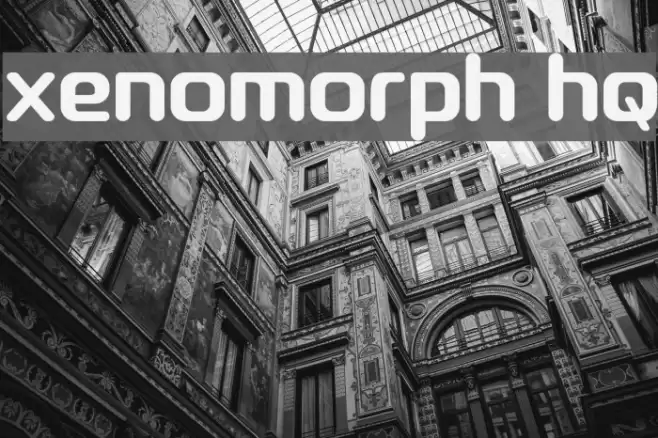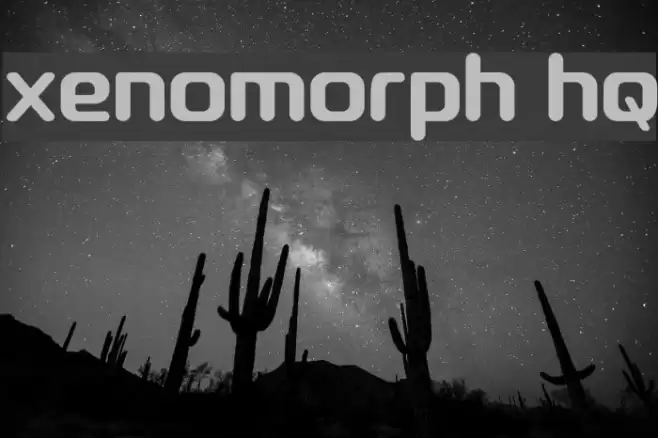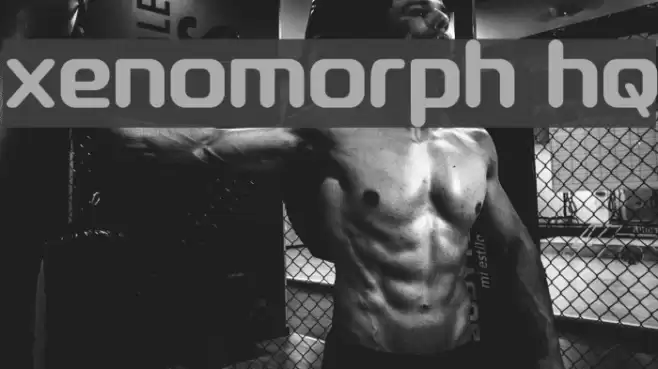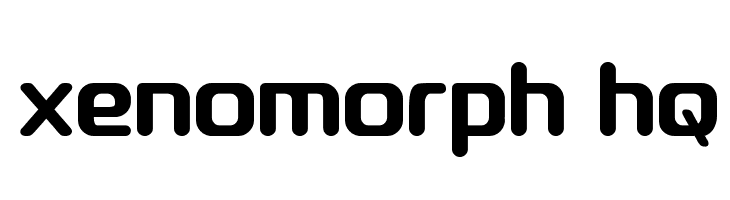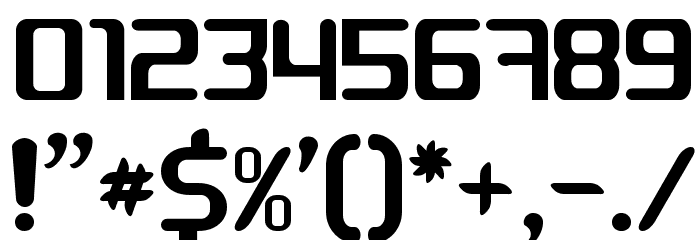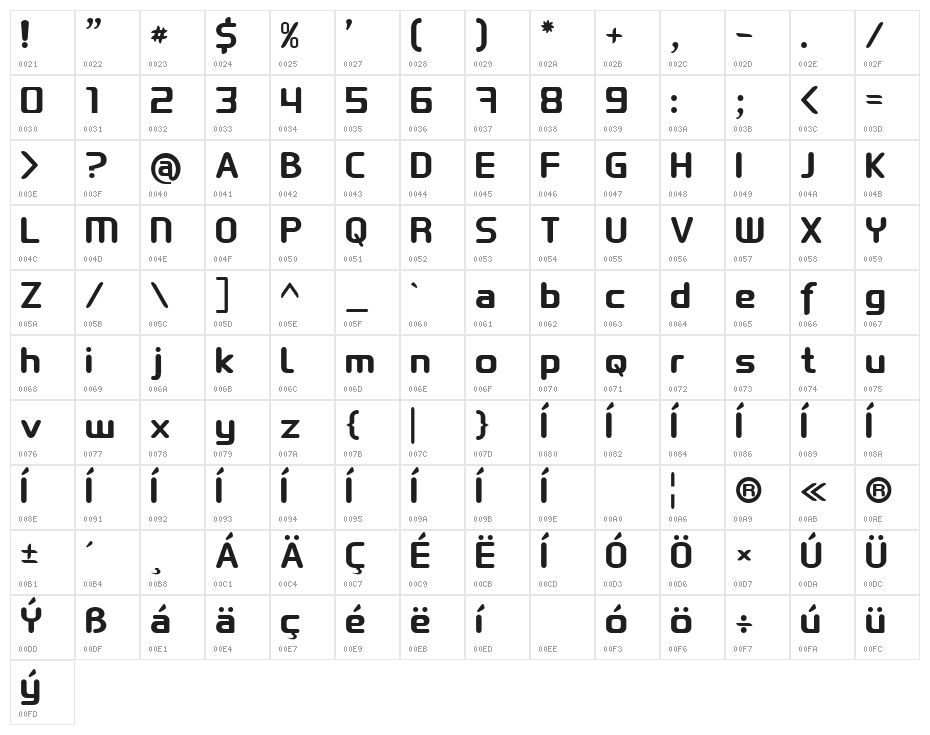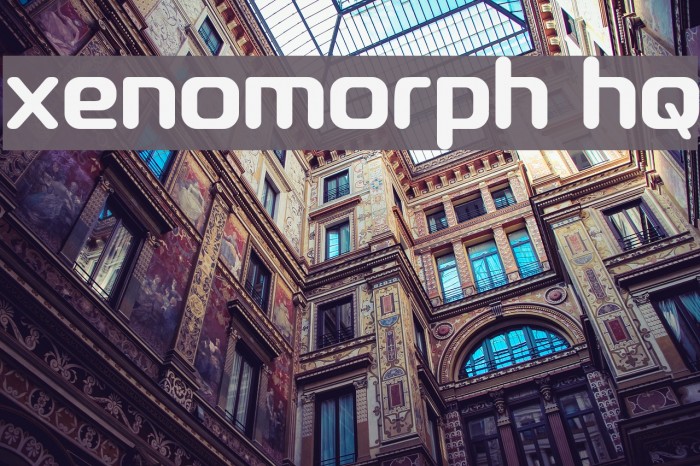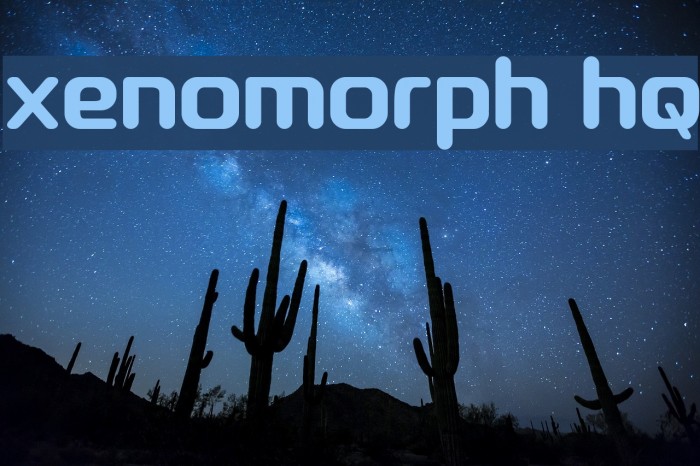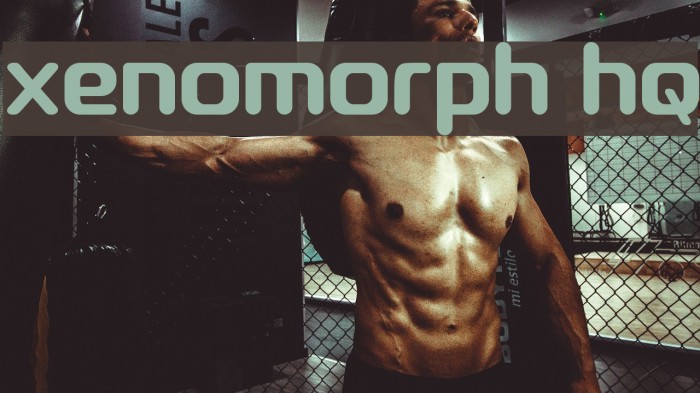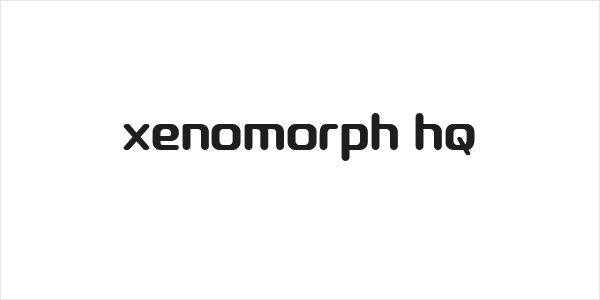
xenomorph hq Font
xenomorph hq Description
This font features a futuristic and geometric design, characterized by rounded edges and a consistent stroke width. The uppercase letters are bold and assertive, while the lowercase letters maintain a uniform appearance with a slightly softer touch. The numerals are clear and easily distinguishable, making them suitable for digital displays. Special characters are designed to match the overall aesthetic, providing a cohesive look. The font's modern style is ideal for technology-related projects, offering a sleek and contemporary feel.
A futuristic, geometric font with rounded edges and consistent stroke width from Uncategorized fonts.
- Proposed Projects: Ideal for technology branding, digital interfaces, video game design, and sci-fi themed projects.
- Overall Style: Futuristic
- Use Case: Headlines, Logos, Digital Displays